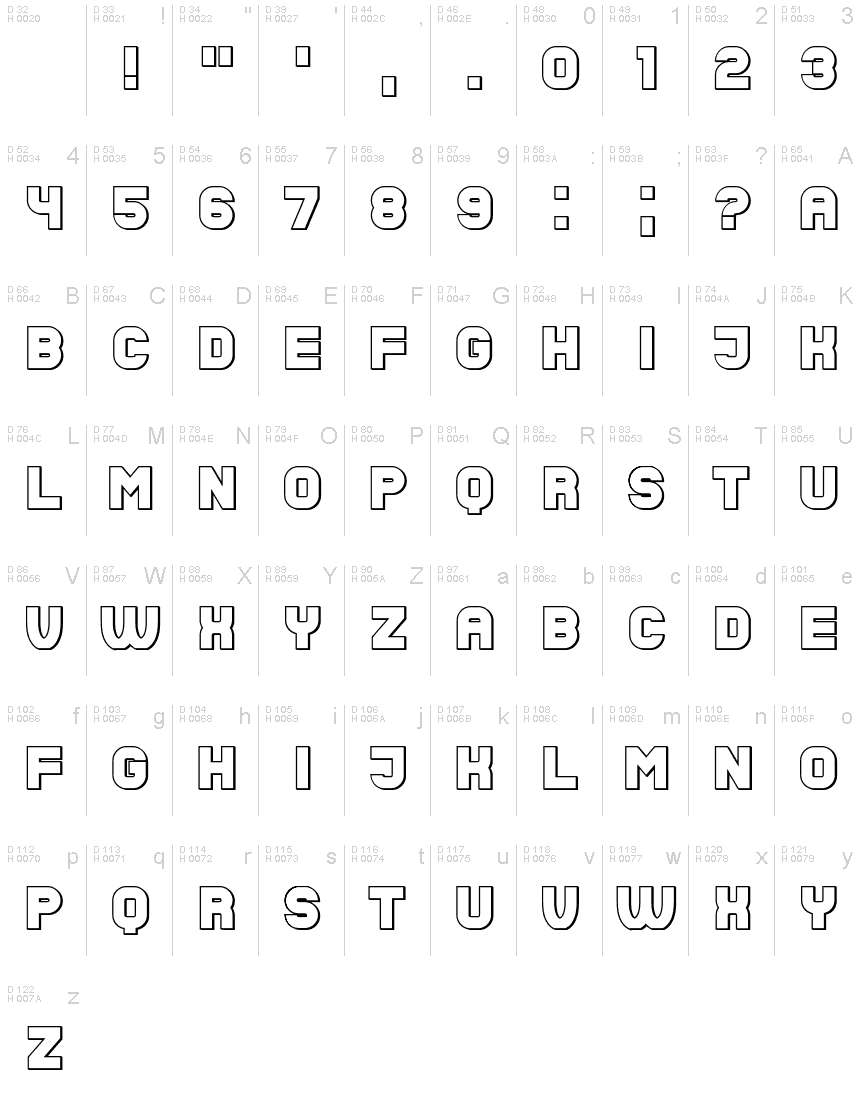
Bigliana 3D
Bigliana 3D is a bold, semi-expanded sans-serif font designed by Vladimir Nikolic. With its striking 3D effect, this font adds depth and dimension to any project. Its versatility makes it suitable for a range of creative endeavors like branding, packaging design, and advertising campaigns. Bigliana 3D's boldness and semi-expanded width make it perfect for headlines, titles, and logos that require impact and readability. Whether you're looking to create eye-catching posters or professional-looking presentations, Bigliana 3D is the ideal choice for designers who want to make a lasting impression.
"Bigliana" comes in Regular, 3D and Light variants!